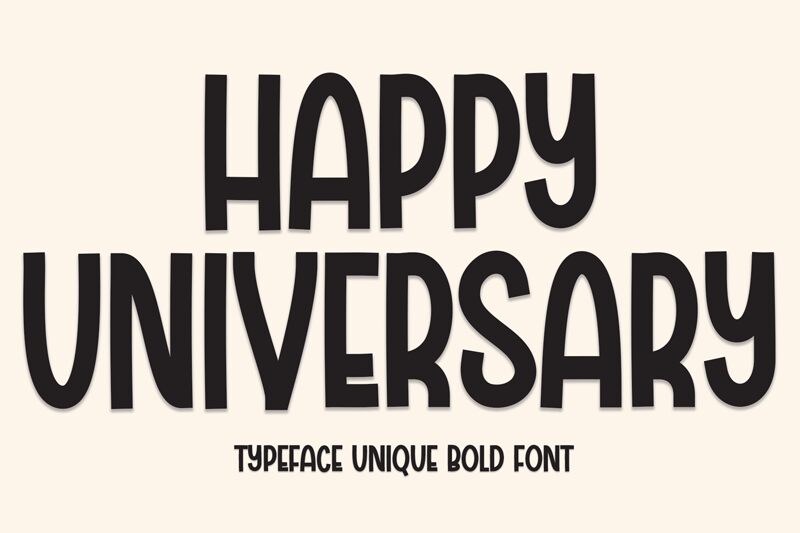
Happy Universary
Happy Universary, crafted by Scratchones, is a font that radiates joy and whimsy. As a condensed display font with comic flair, it infuses laughter into every character, making it perfect for projects that demand a touch of playfulness and originality. Its narrow profile is deceptively versatile—whether you're designing party invitations, vibrant posters, or fun branding elements, Happy Universary ensures your message stands out with its unique blend of light-heartedness and readability.
This font isn’t just about being seen; it’s about creating smiles with every word.